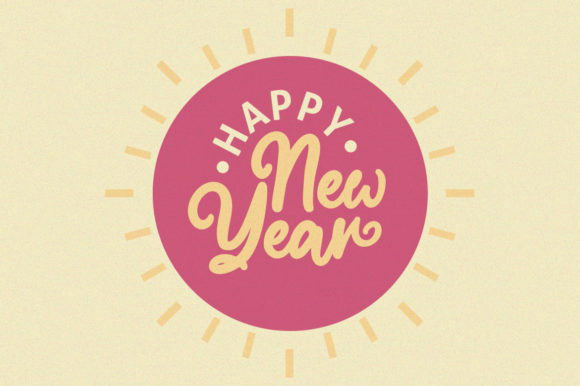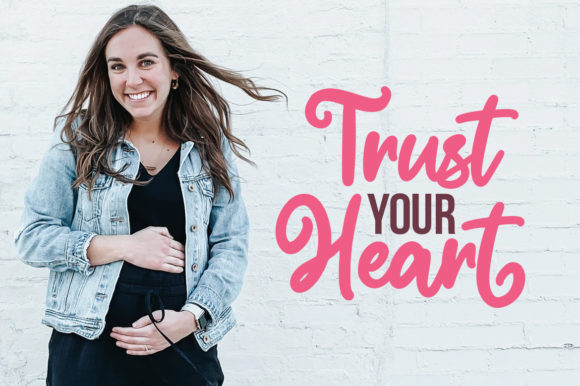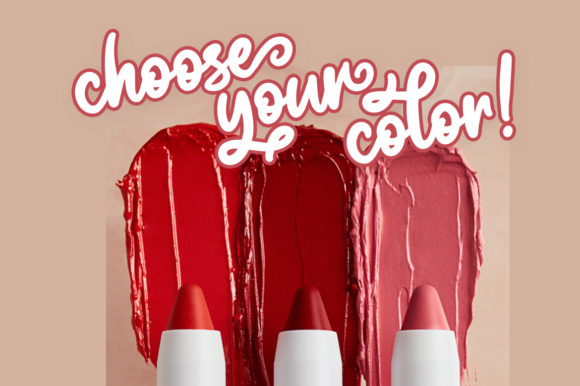
Introduction to Regitta Font
Regitta is a sweet, soft hand-lettered handwritten font.
The playful rounded characters make it the perfect font for creating stunning crafts Get inspired by its authentic feel and use it to create gorgeous wedding invitations, beautiful stationary art, eye-catching social media posts, and cute greeting cards.
Key Features of Regitta Font